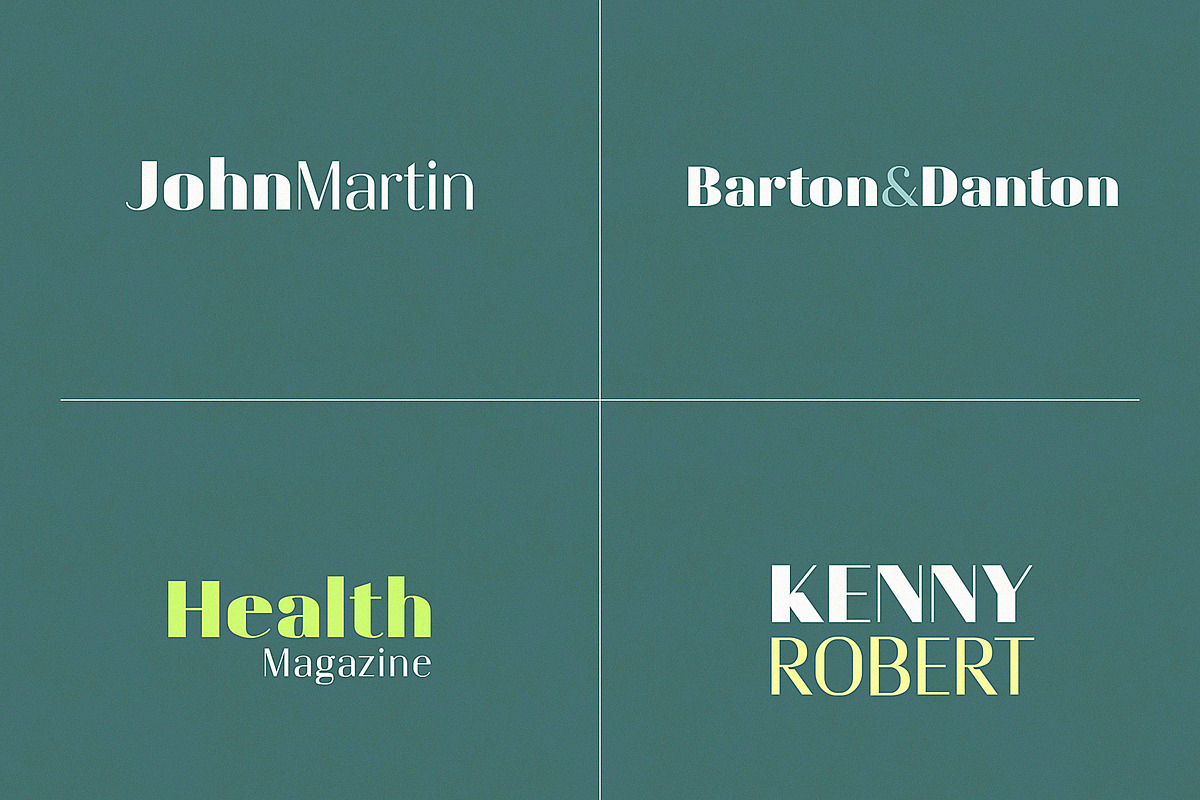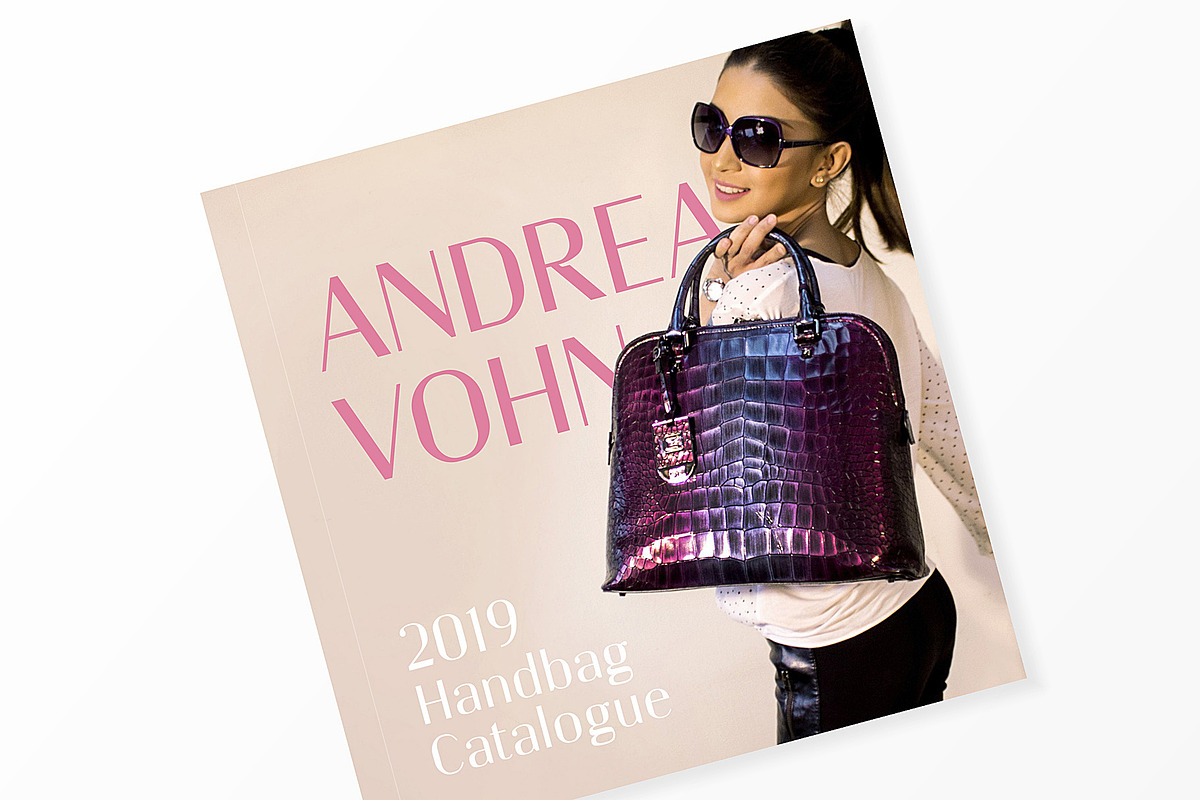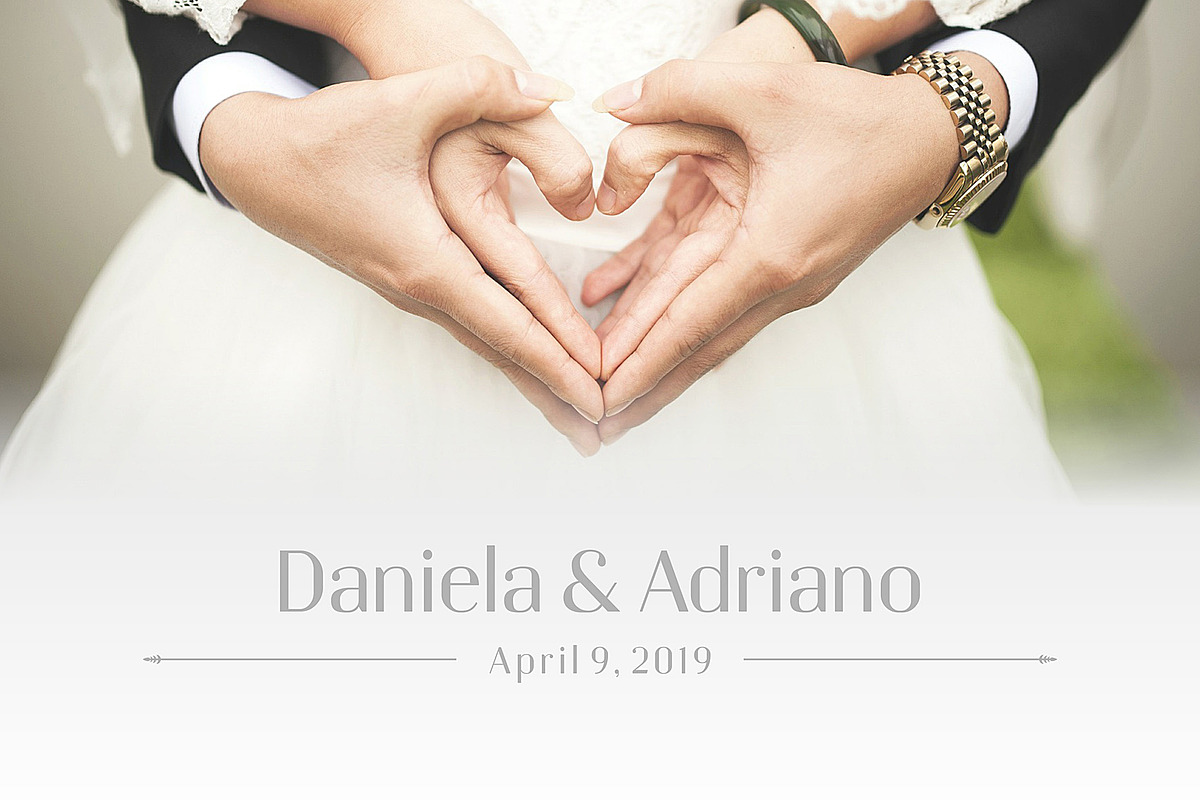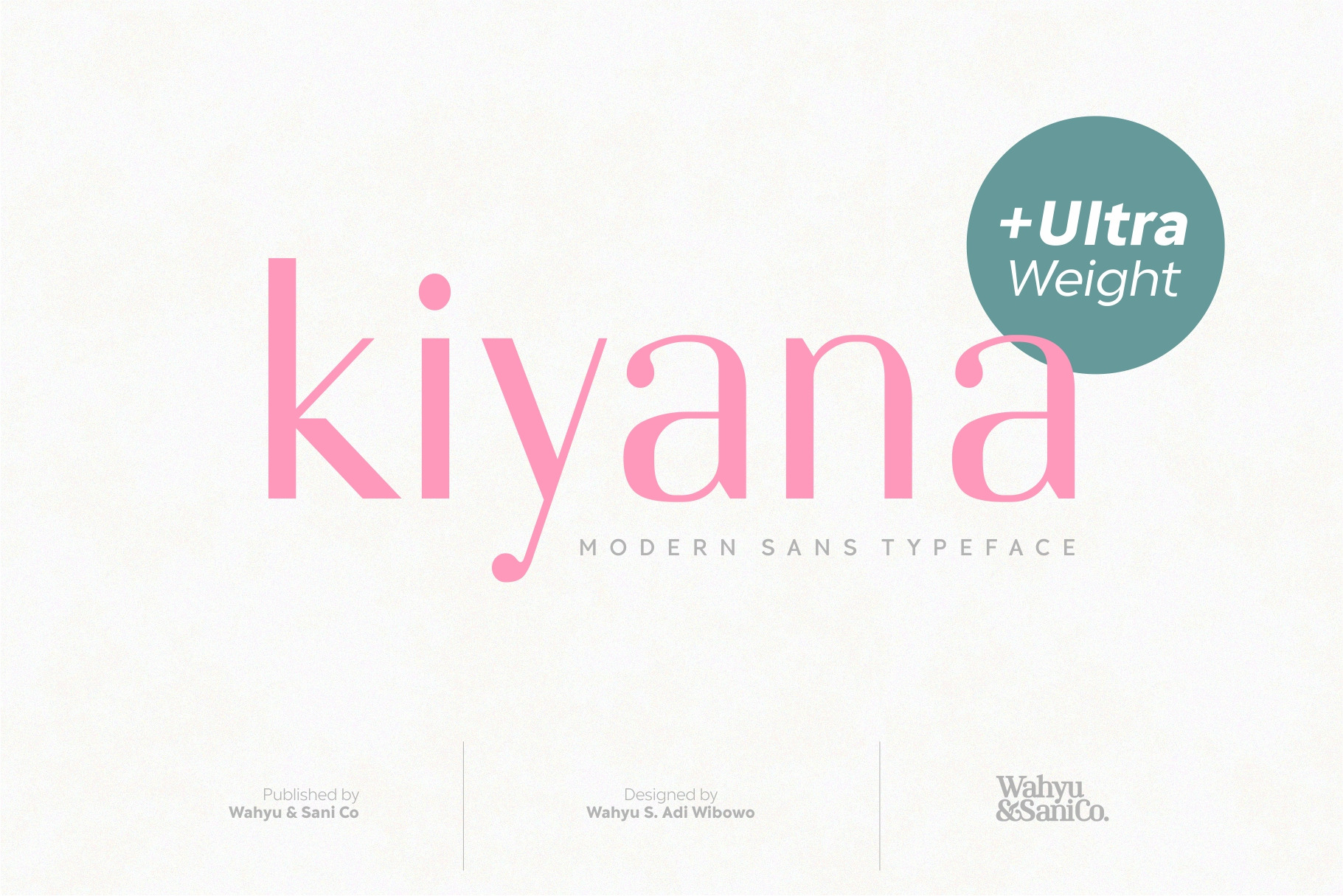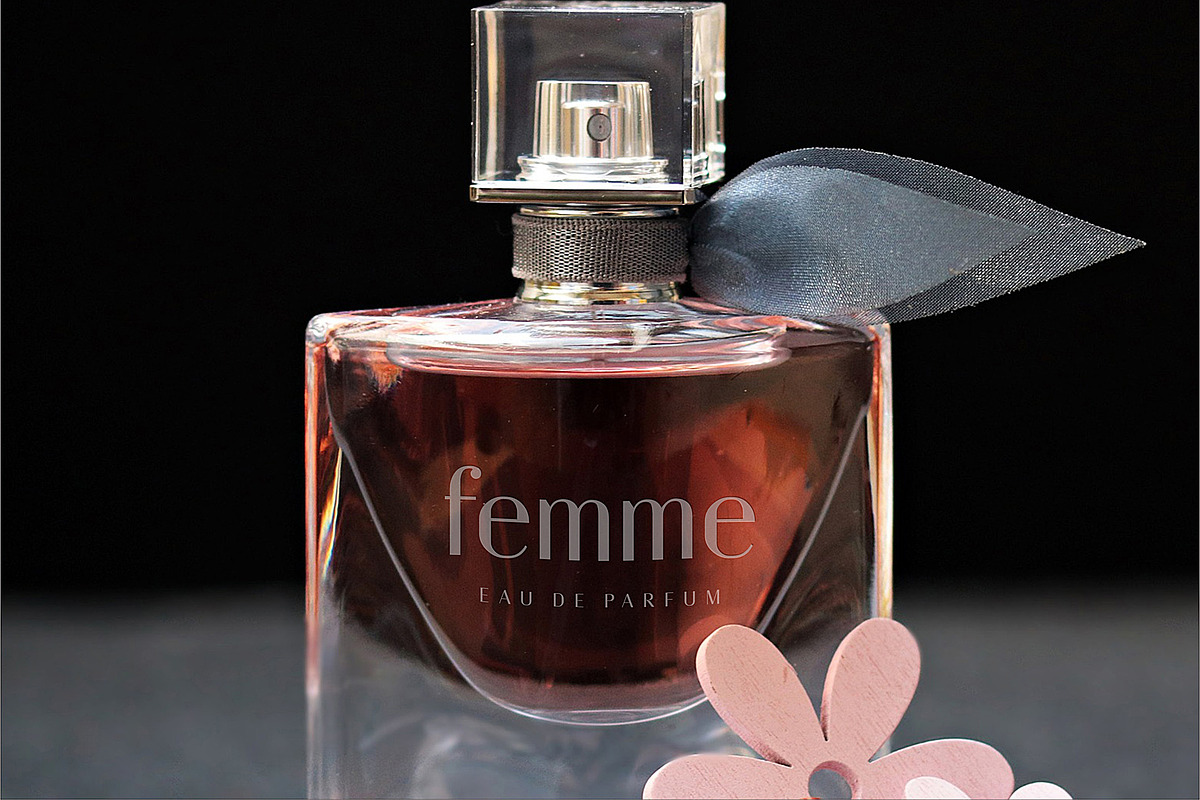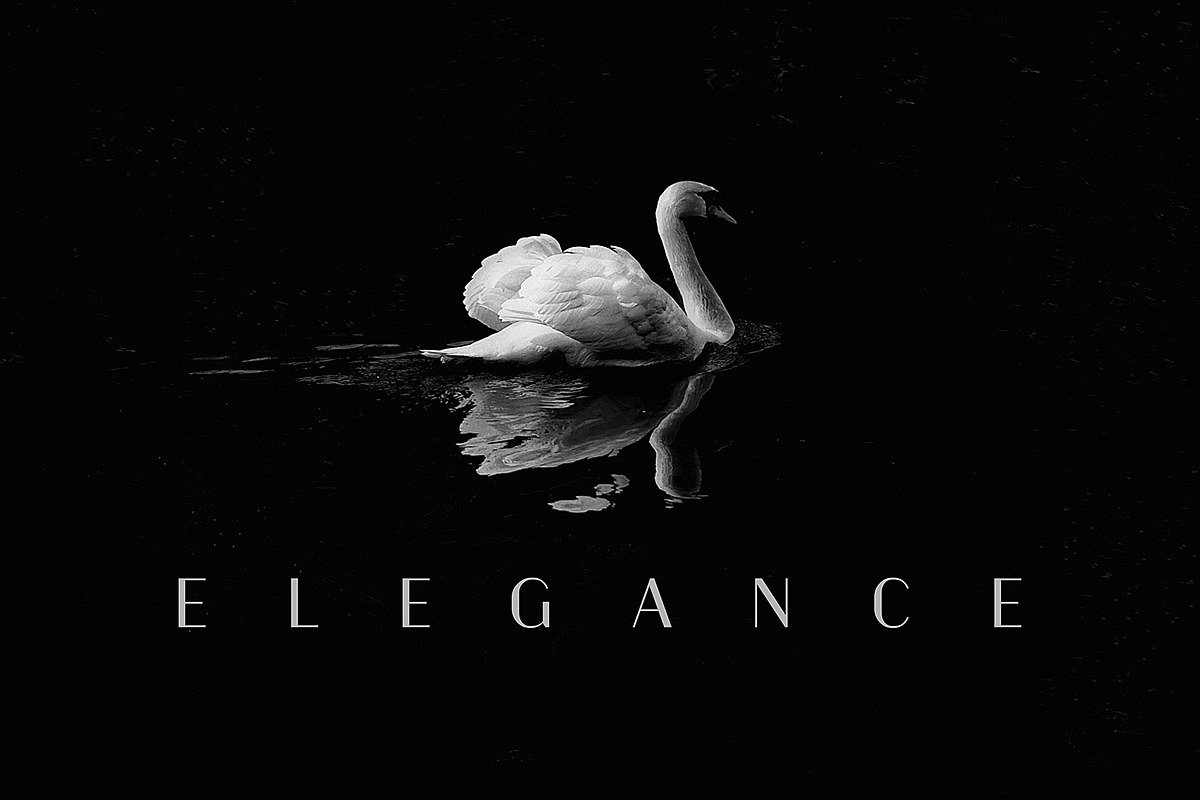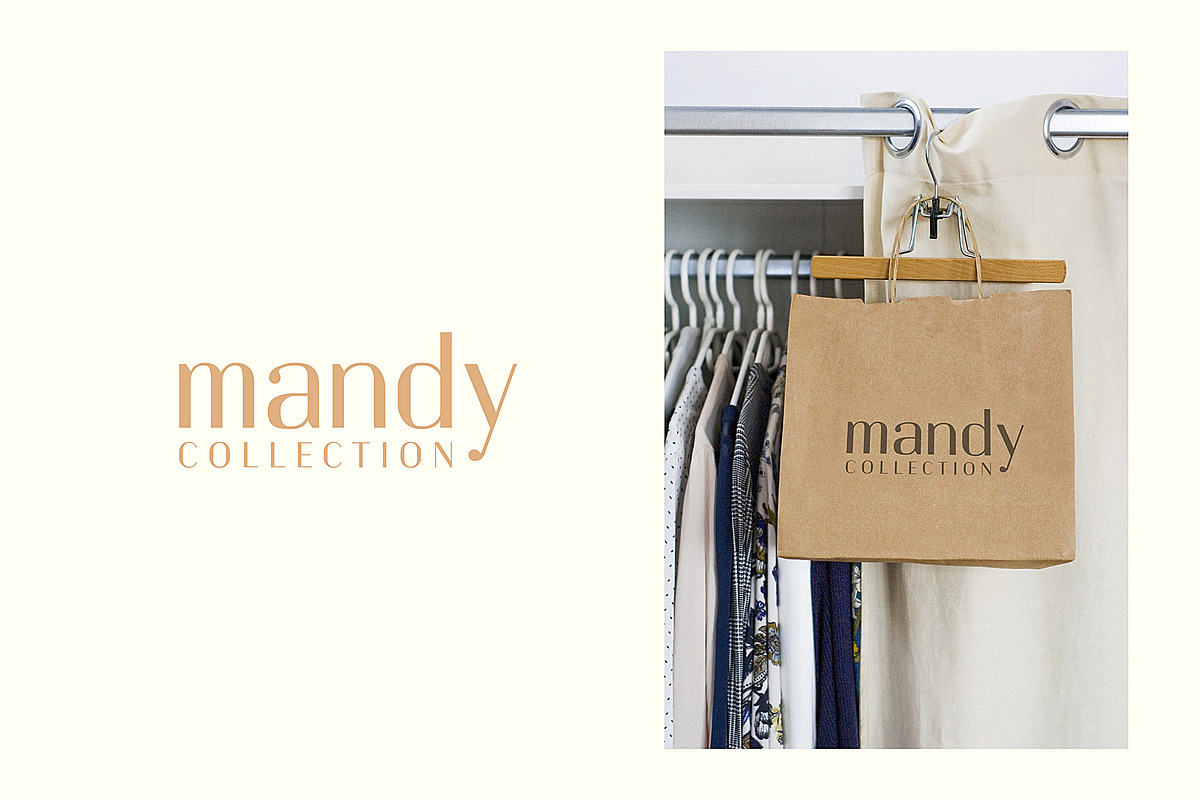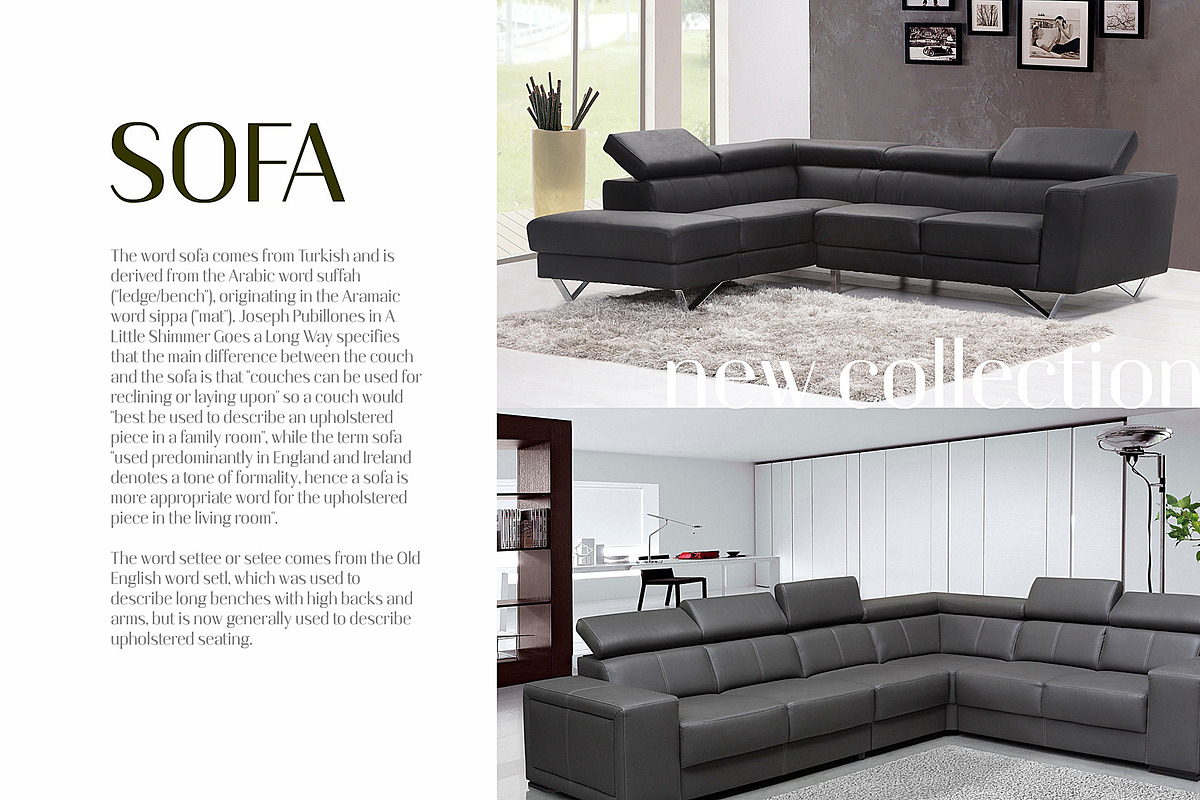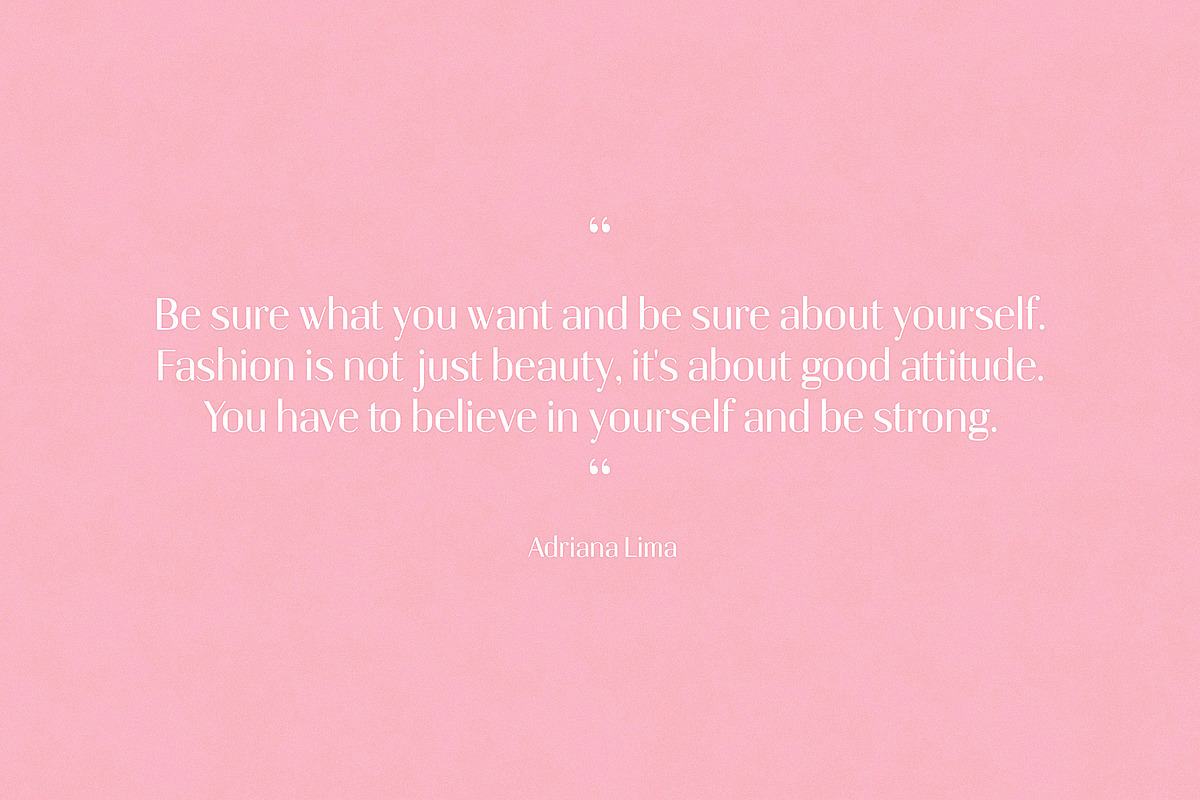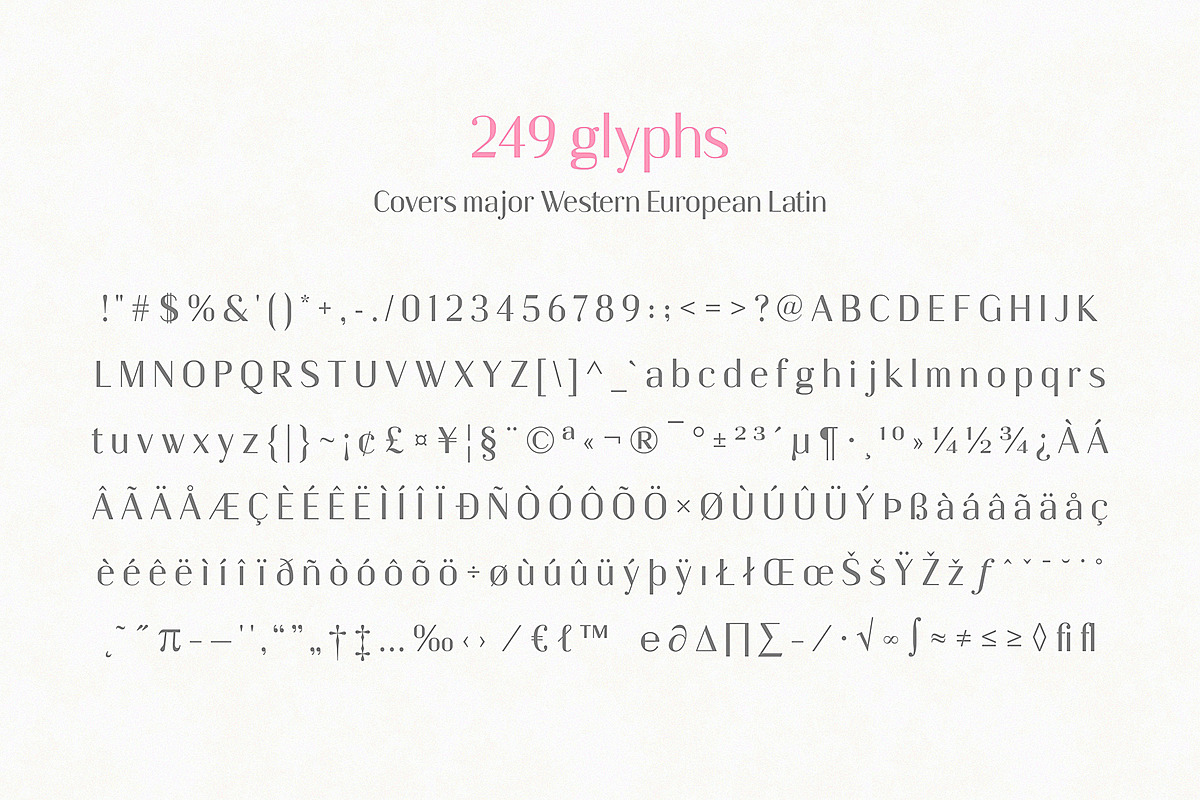
Kiyana | Modern Sans Font
Inspired by the beauty and elegance of Modern Typefaces. Comes in regular weight with a range of usages (logo, quotes, display text, etc.). This font support most Western European Latin languages. Uppercases, lowercases, punctuations, and some mathematical symbols included (see the last page).